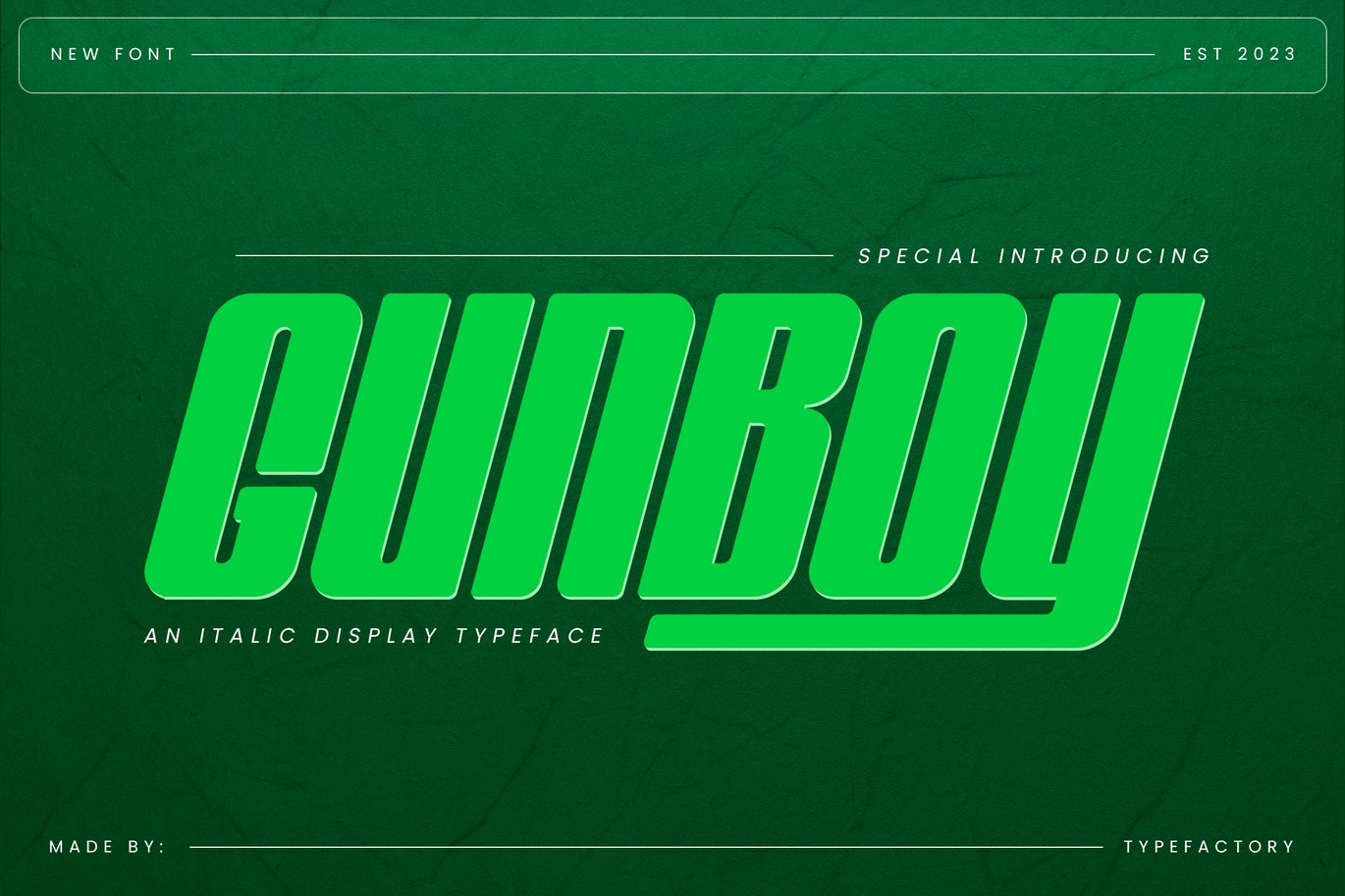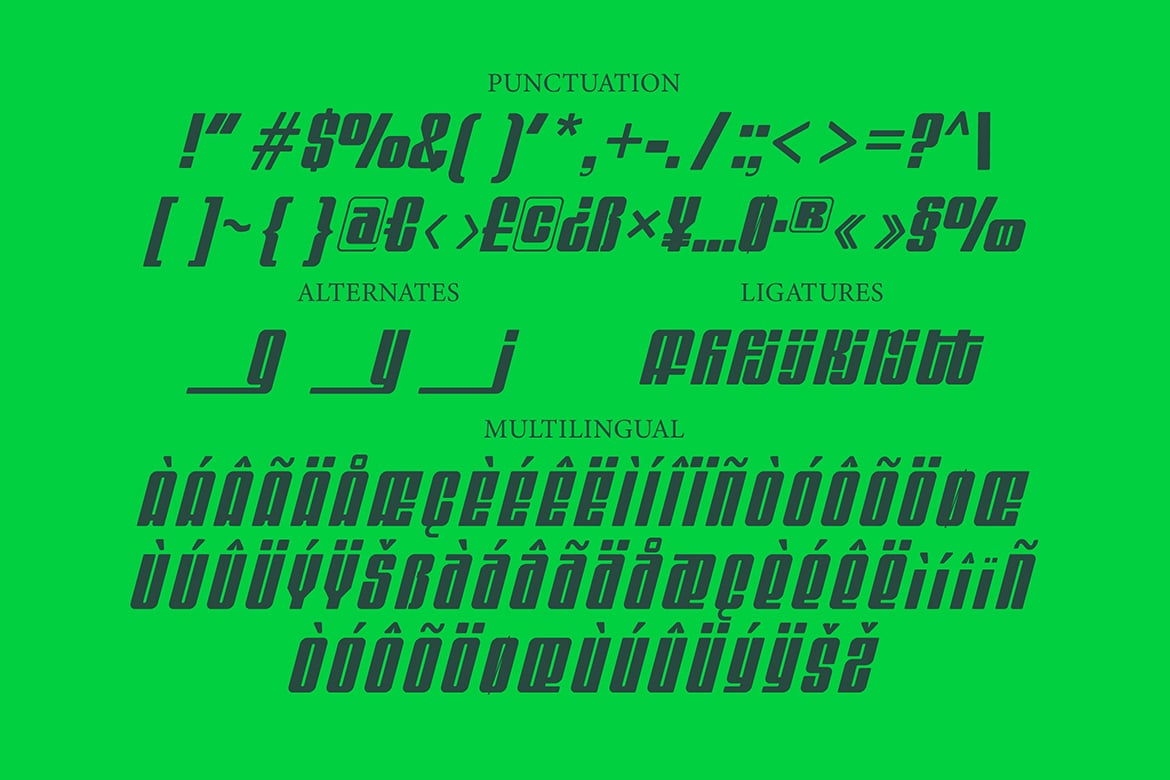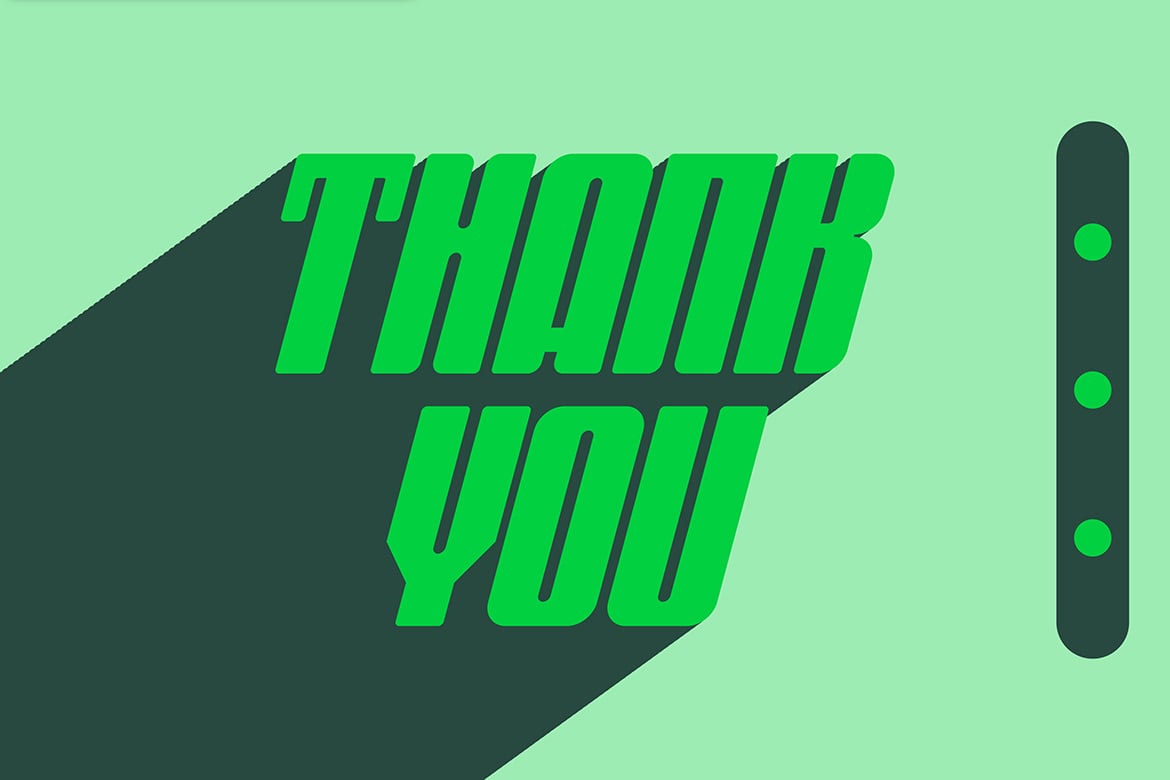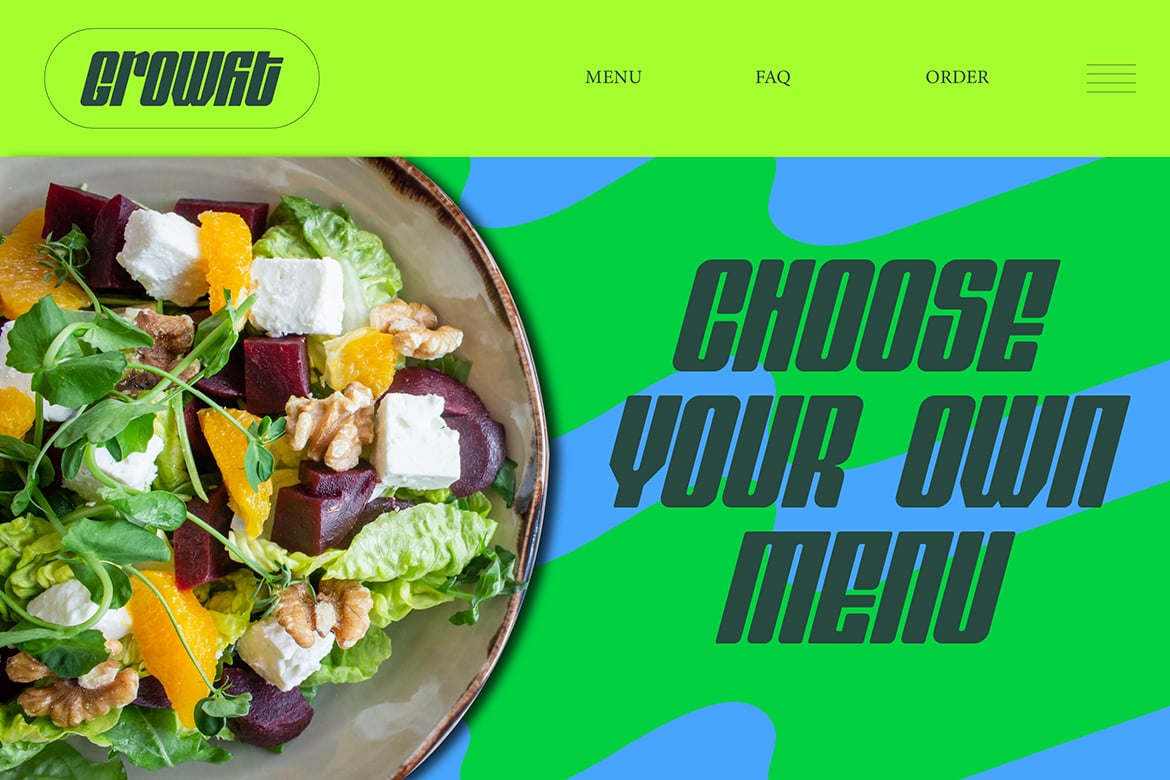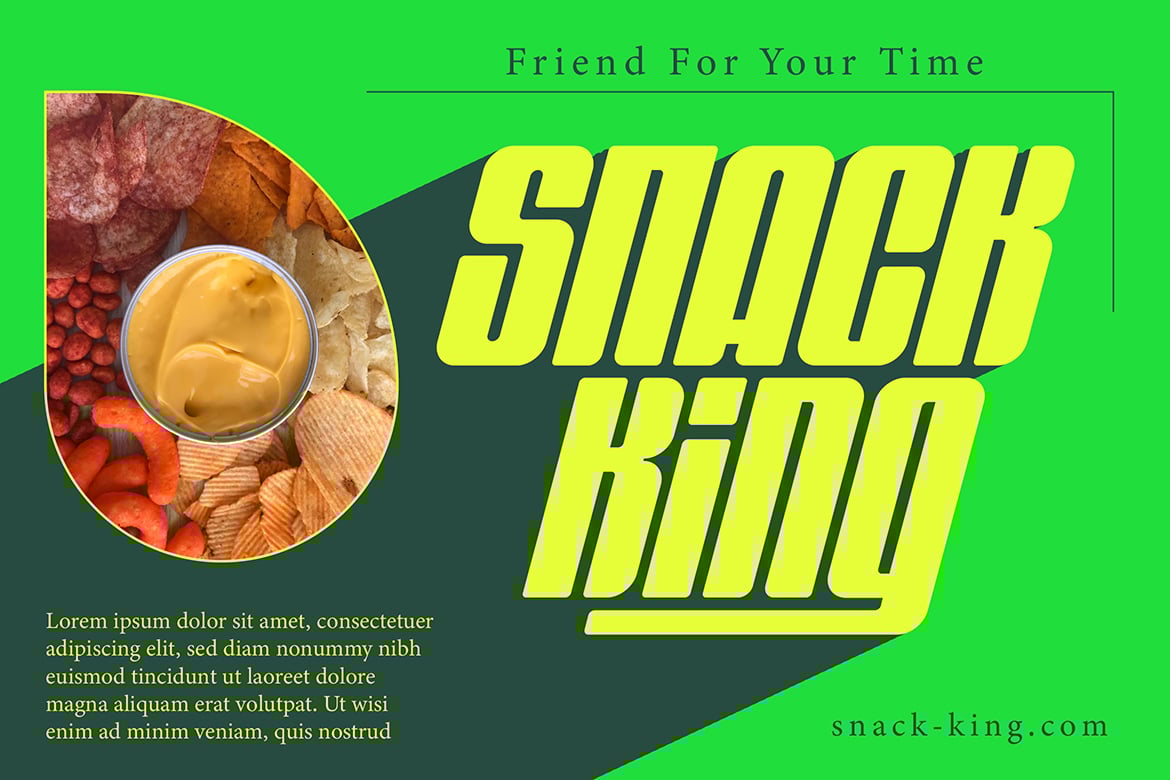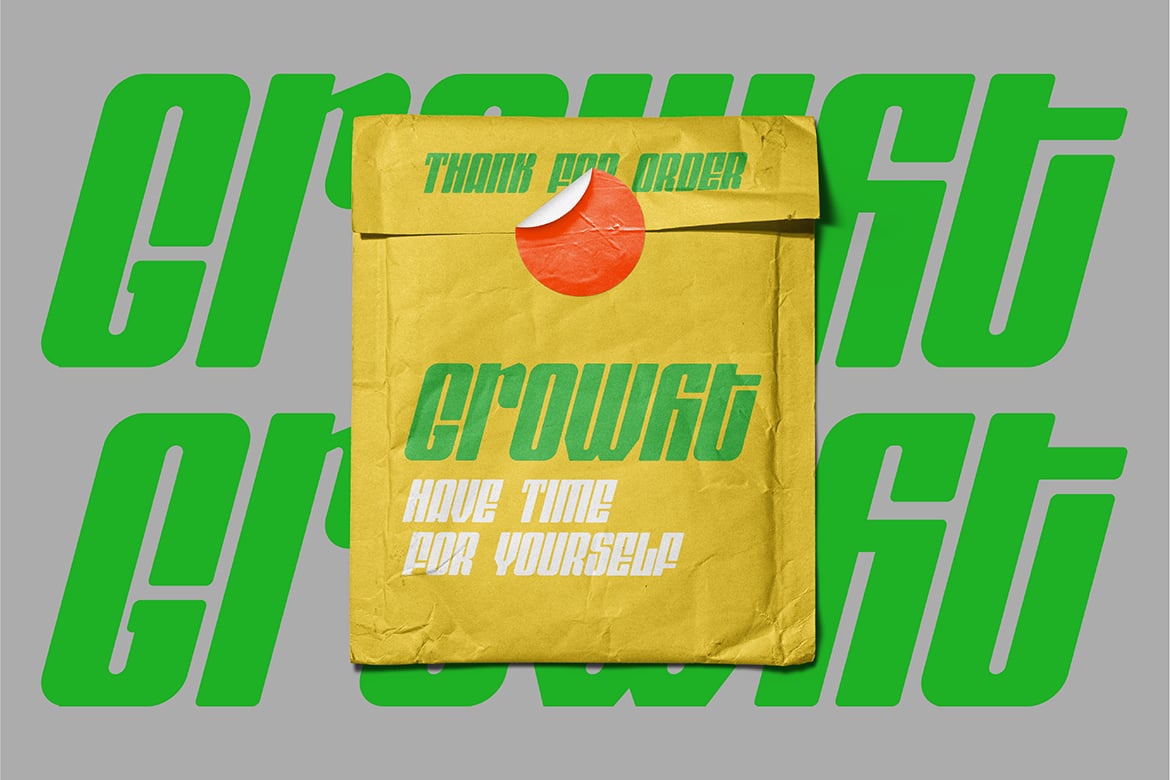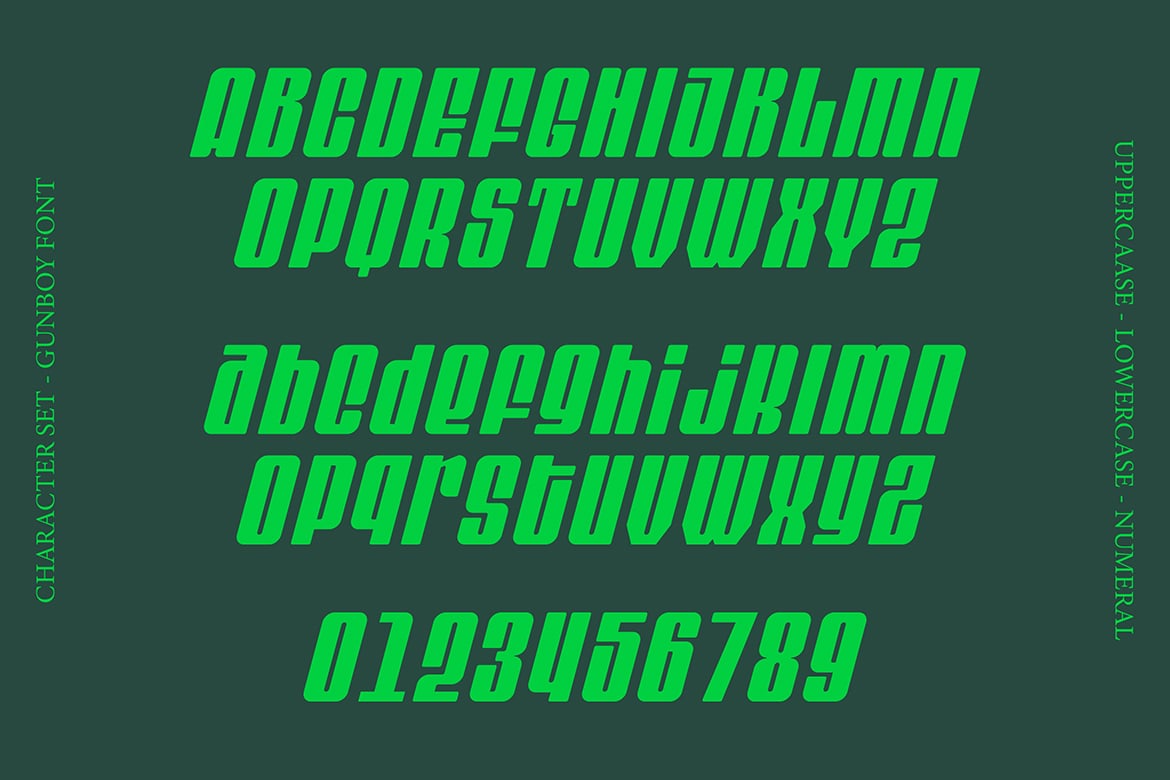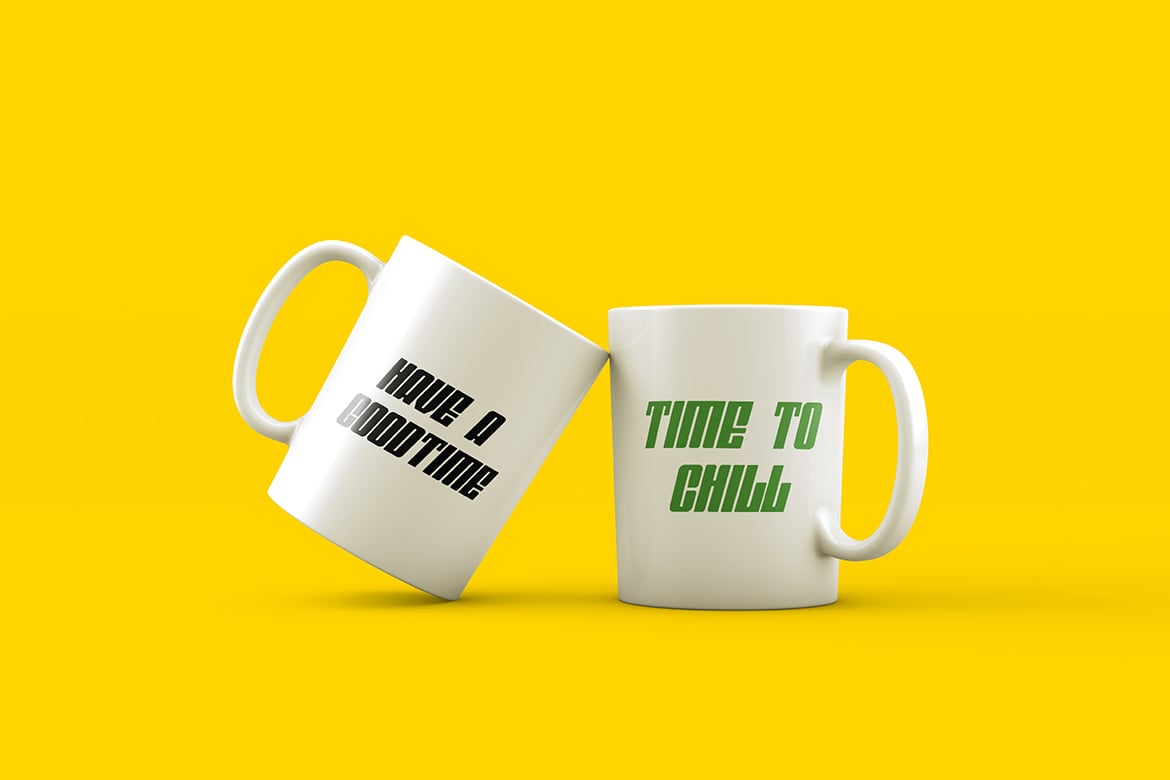
Gunboy – Italic Display Typeface
Gunboy is a dynamic italic display typeface that infuses your designs with energy and movement. Its sharp, slanted letterforms and bold presence make Gunboy perfect for projects that need a modern, edgy vibe. Ideal for posters, album covers, sports branding, and gaming interfaces, this typeface captures attention with its striking angles and aggressive stance. Gunboy adds a sense of urgency and action to your designs, making it the go-to choice for creative work that demands a bold, fast-paced aesthetic.